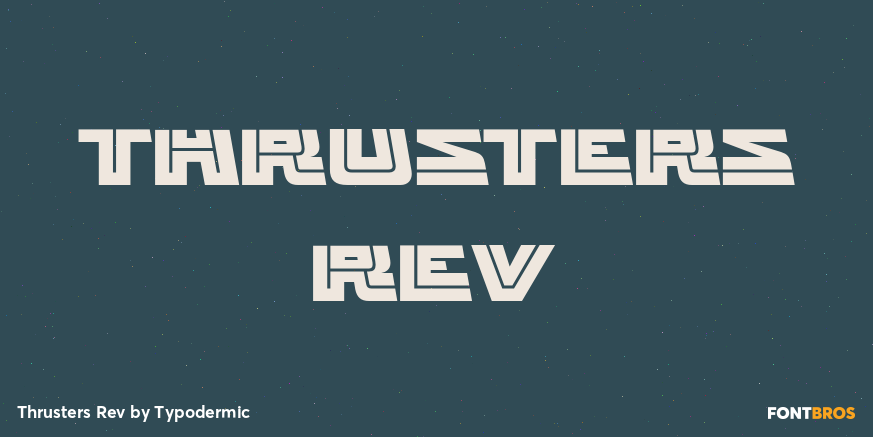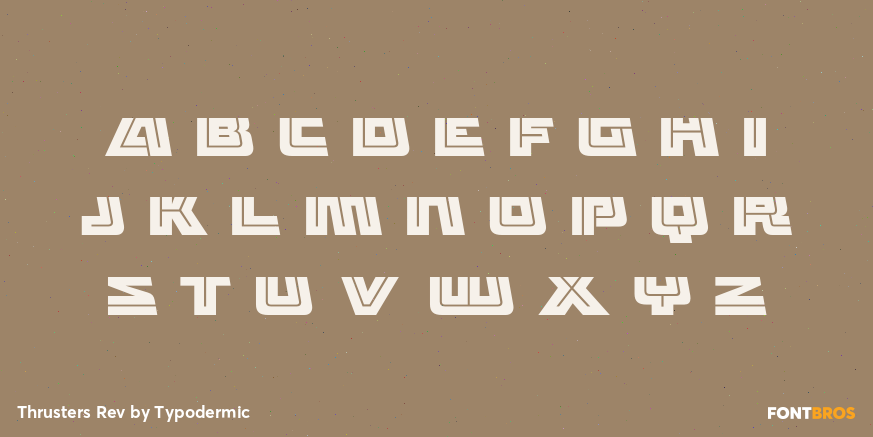
Thrusters Rev
Buy NowThrusters Rev draws the routed inner component of the family’s angular letterforms. Open channels, squared turns, and directional cuts produce a technical line pattern that remains readable by itself and aligns precisely with the other Thrusters styles for multicolor construction.
Use Thrusters Rev for arcade titles, model-rocketry graphics, racing-team marks, technical hobby packaging, vehicle stripes, and animated diagrams where an internal route can be revealed separately. It benefits from generous scale and clean contrast; combine it with Off or Fwd when the design calls for a denser emblem or additional color separation.